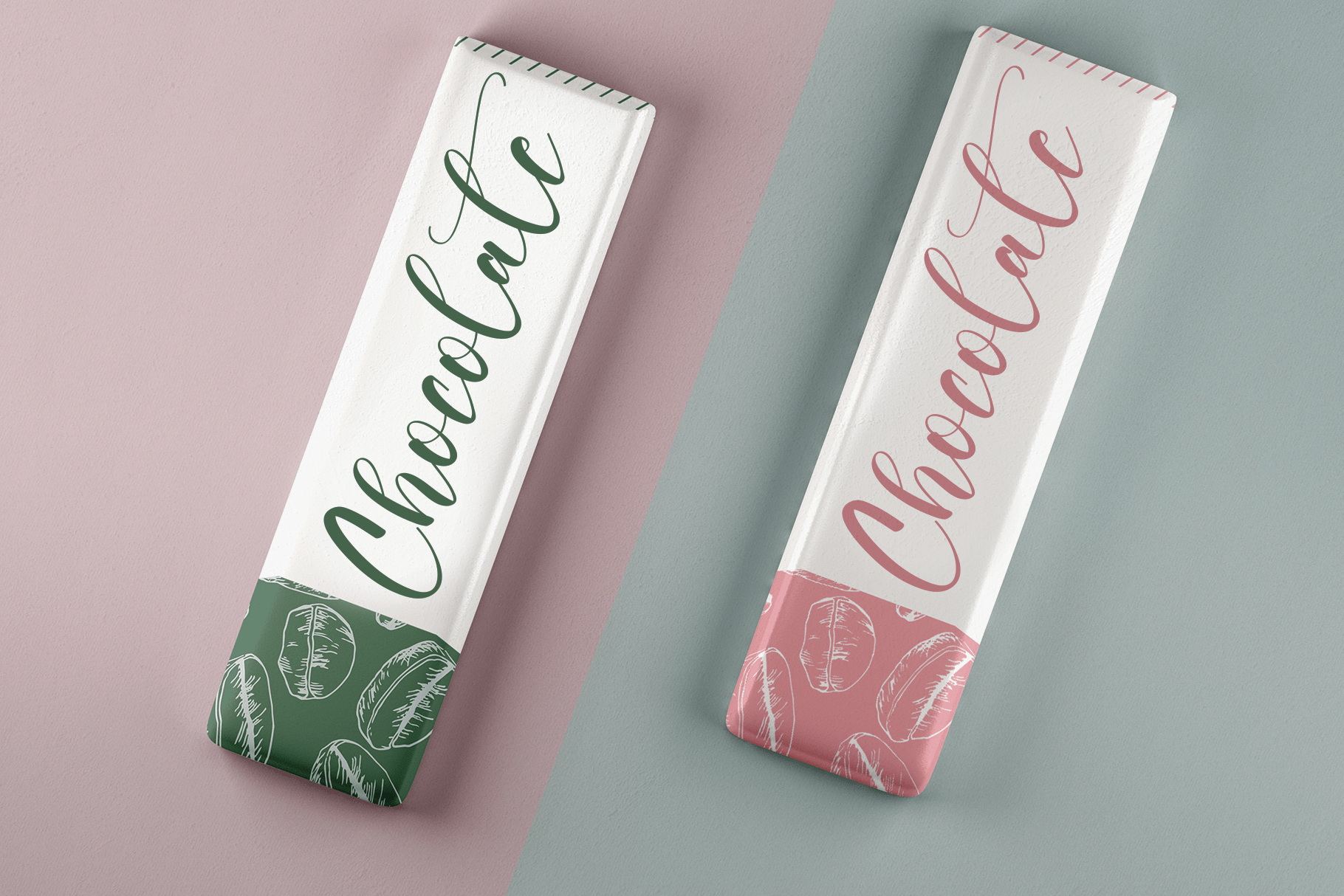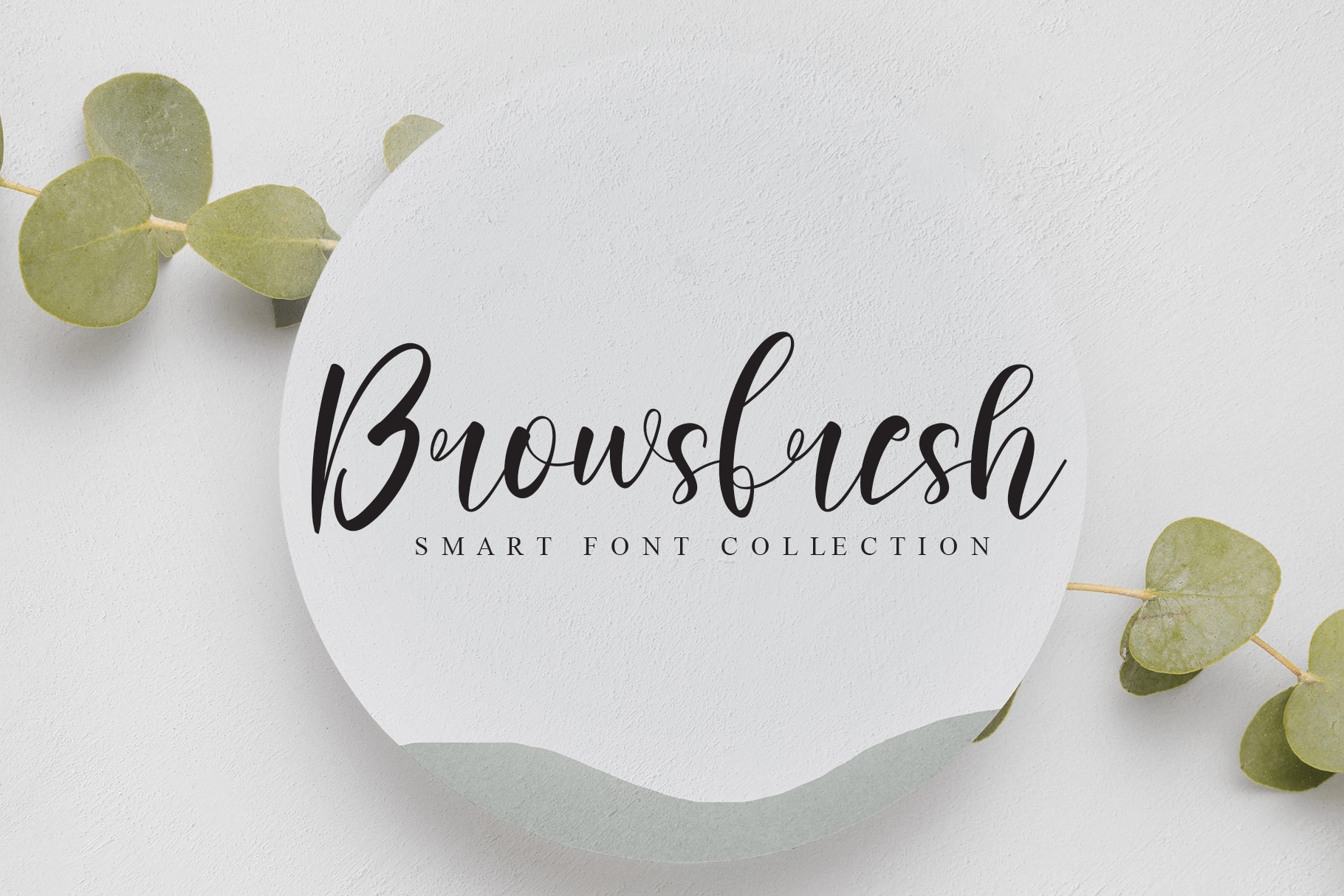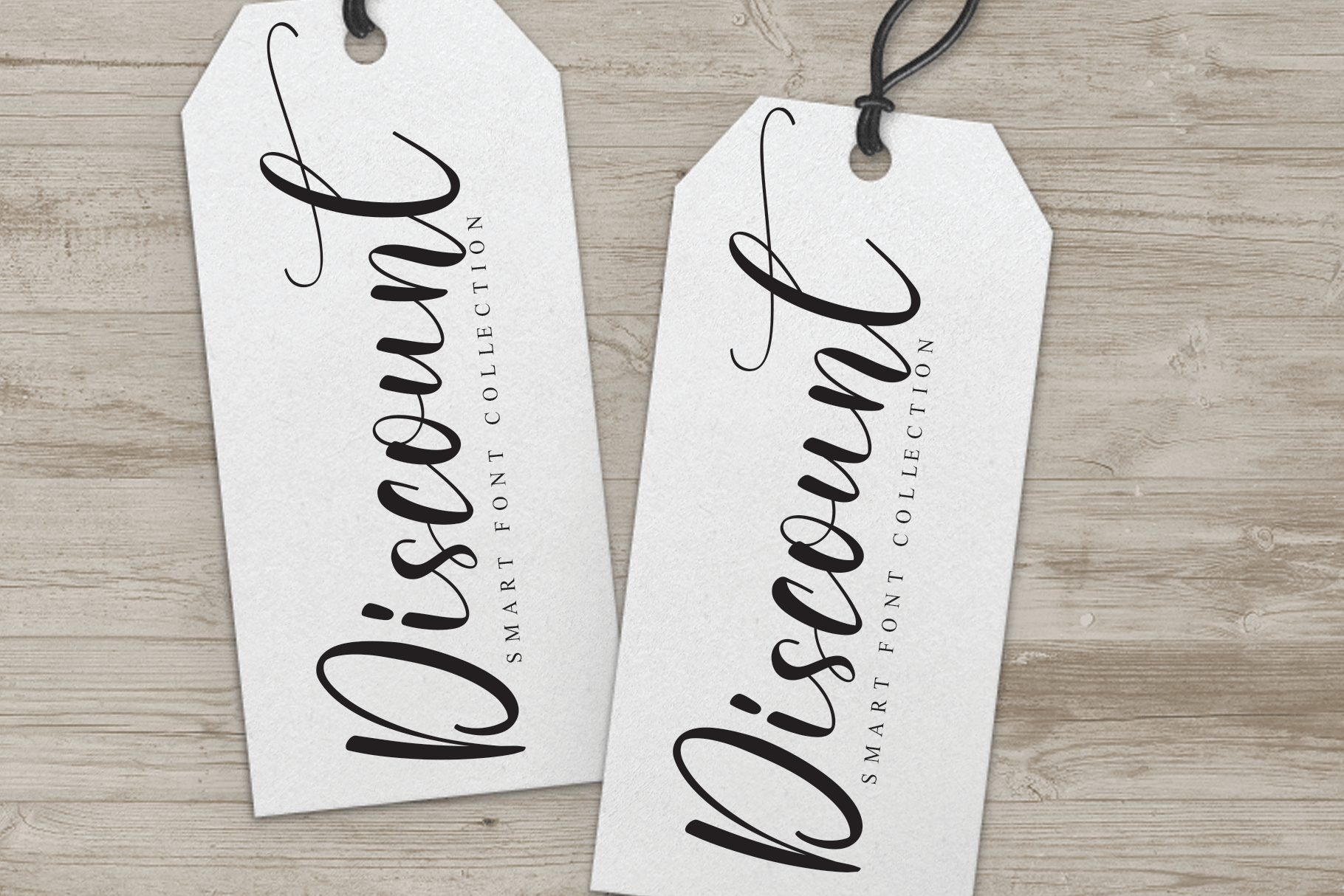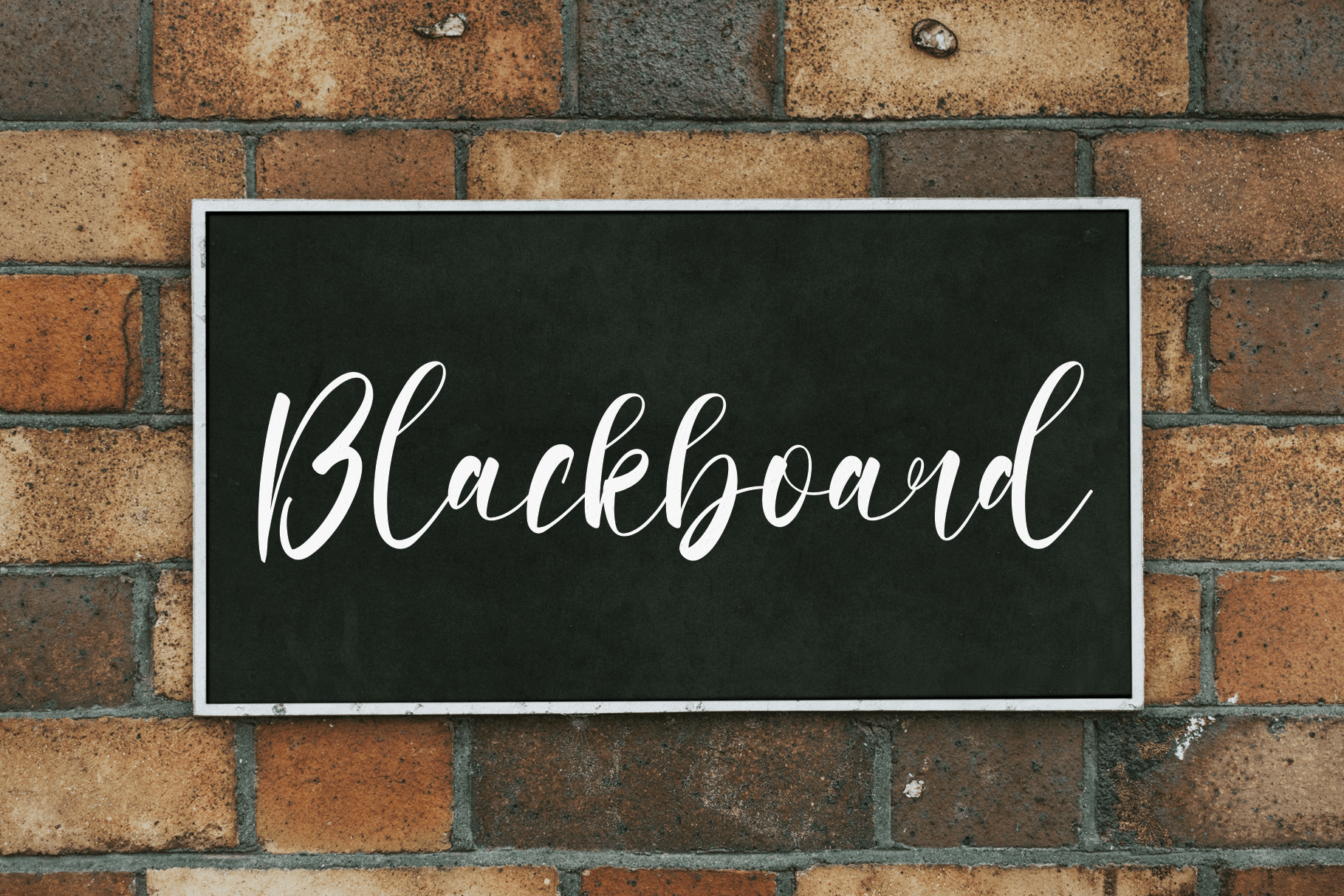
Kindlove Font
Kindlove Script Font
This is a beautiful script font. Fall in love with its completely different and timeless style and use it to create spectacular designs!
the latest style letters are perfect for wall displays, wedding invitations, social media post logos, advertisements, product packaging, product designs, labels, photography, watermarks, invitations, stationery, and any project that requires taste handwriting.